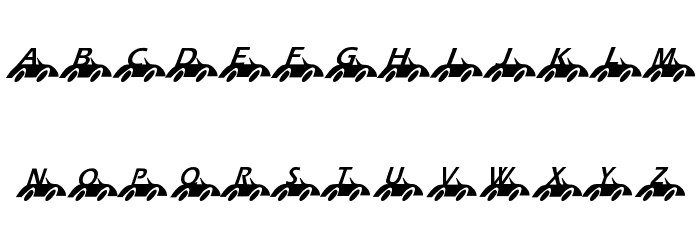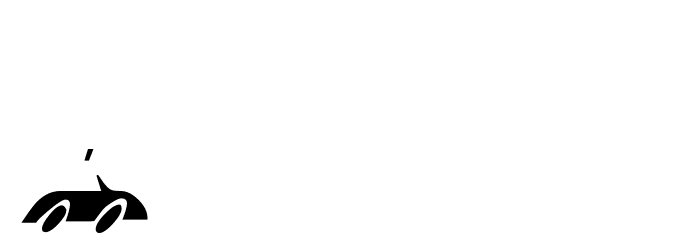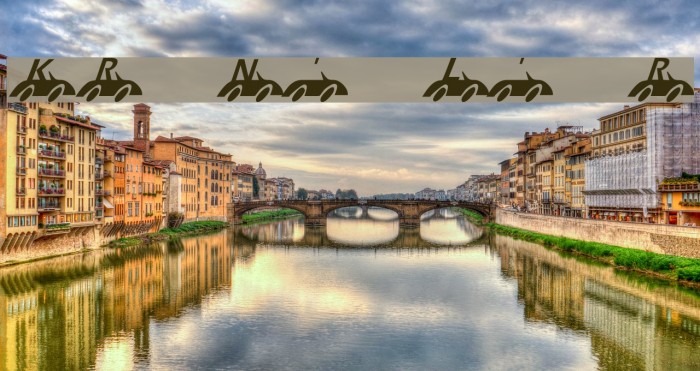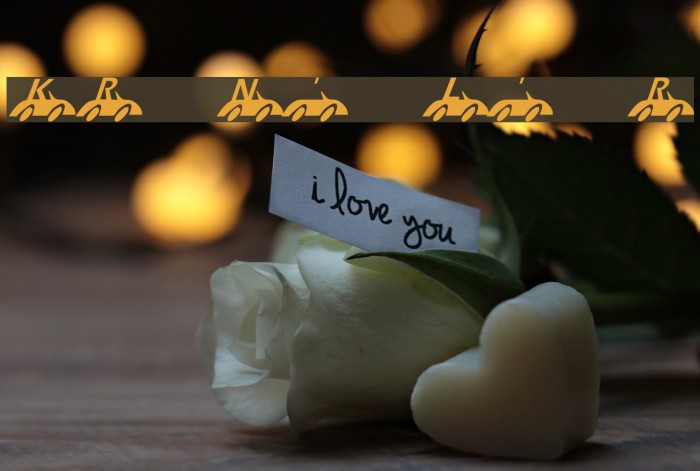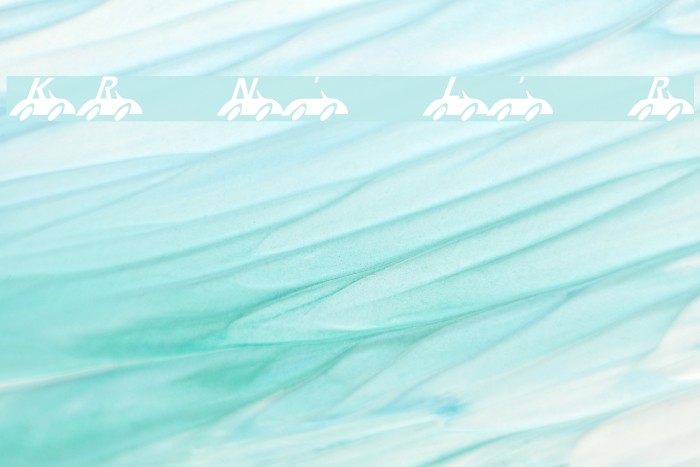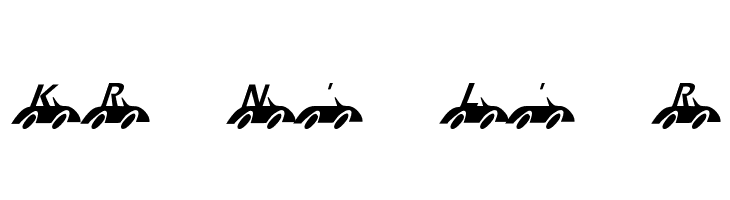
KR Nick's Lil' Racer Font
This playful and dynamic font features each character integrated with a stylized car design, creating a sense of motion and speed. The letters are bold and italicized, with a sleek, modern aesthetic that captures the essence of racing. Each character is uniquely crafted to resemble a car silhouette, making it ideal for themes related to automobiles, racing, or children's projects. The font's distinctive style is both eye-catching and fun, with a creative twist that sets it apart from traditional typefaces.
A playful font with each letter integrated into a car design, ideal for racing themes.
- Proposed Projects: Perfect for children's books, automotive branding, racing event posters, and playful graphic designs.